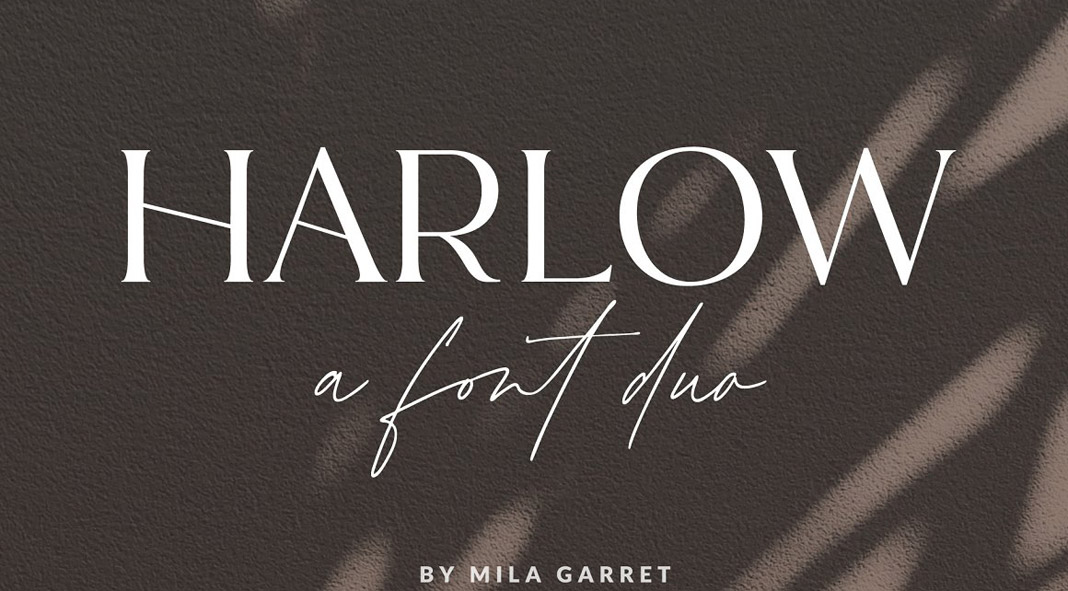
Discover Harlow, a unique font duo designed and published by Mila Garret.
The Harlow font duo combines an elegant serif typeface with a casual handwritten script font. These typefaces are great to bring a luxurious style to your designs. You can use the Harlow font duo for websites, modern logos, branding, social media quotes, and wedding invitations, just to name a few.
The Harlow Serif font features a quirky capital in the letters ‘A’ and ‘H’ (with standard versions as alternates) while the Harlow script font comes with 187 ligatures to give your work a natural look. Just click on the following link to get further information.